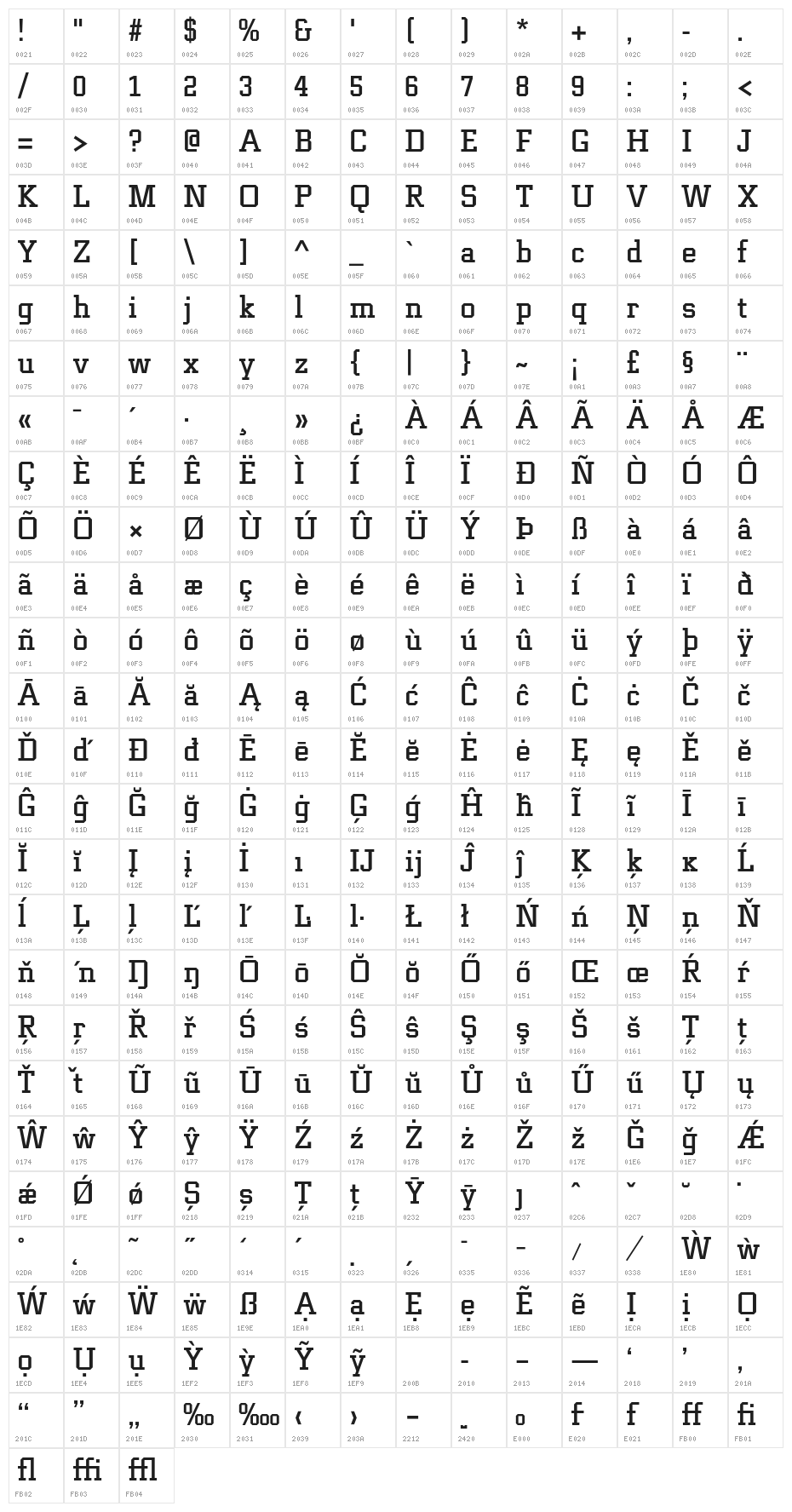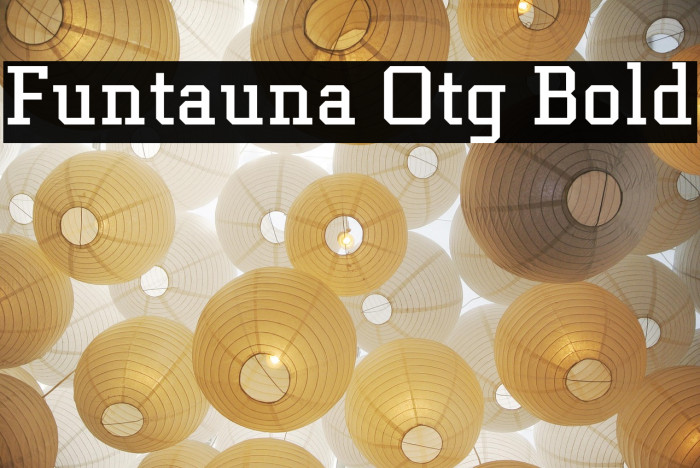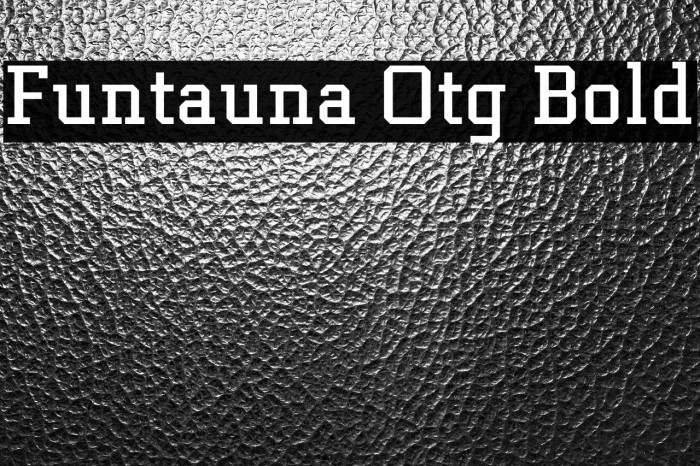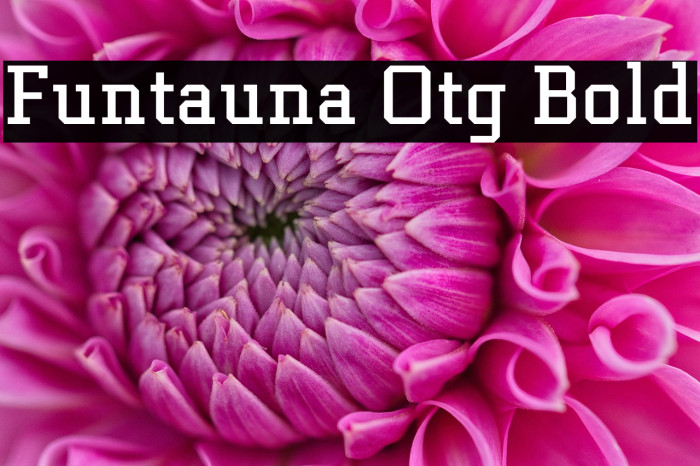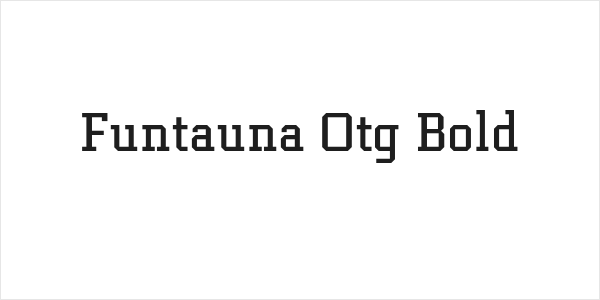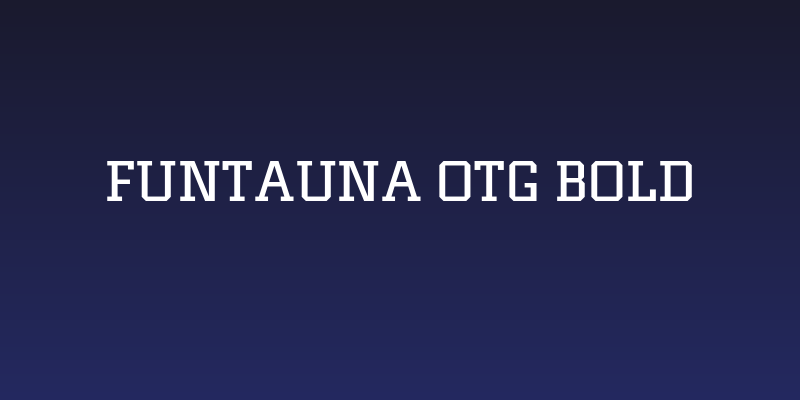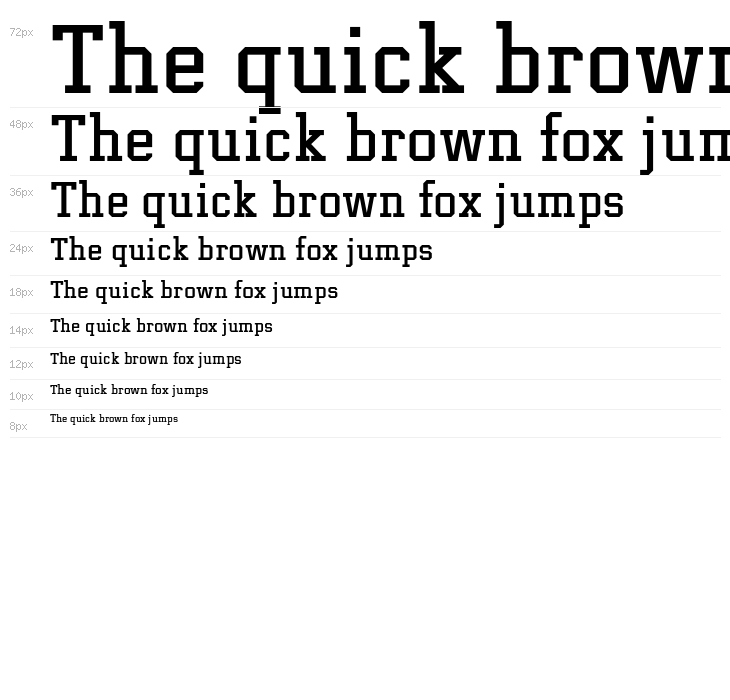
Funtauna Otg Bold Font
Funtauna Otg Bold Description
This font features a bold, slab serif style with strong geometric shapes and a sturdy appearance. The uppercase letters are uniform in height, with sharp, angular serifs that give a sense of strength and stability. The lowercase letters maintain a consistent x-height, providing a balanced look. The numerals are equally bold, with a clear, legible design that complements the overall aesthetic. Special characters are designed with the same attention to detail, ensuring they integrate seamlessly with the rest of the typeface. This font's boldness and clarity make it suitable for impactful designs.